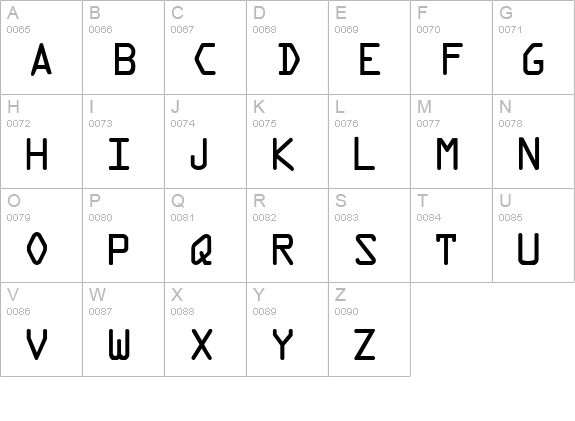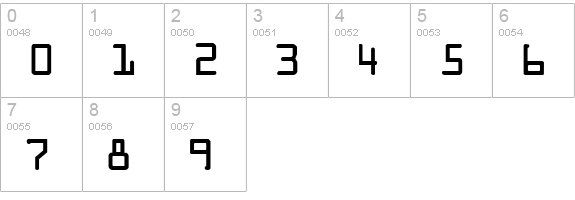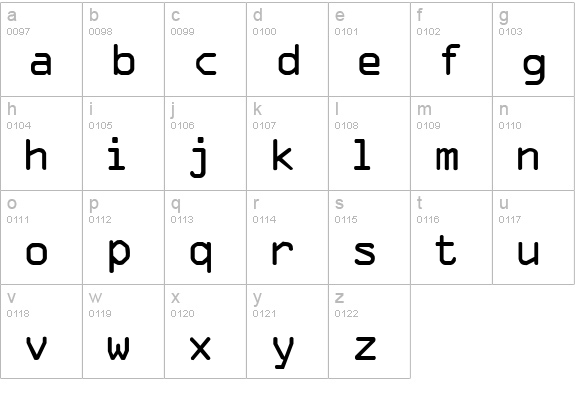
October Font Details
Introducing October font, a versatile and modern typeface that exudes sophistication and elegance. With its clean lines and sleek design, October font is perfect for a wide range of projects, from branding to editorial layouts. This contemporary font strikes the perfect balance between classic and contemporary styles, making it a timeless choice for any design. And the best part? October font is available for free download at FontsMarket.com! Whether you are a designer working on a new project or a student looking to enhance your work, October font is the perfect addition to your font library. Don't miss out on this opportunity to elevate your designs with this stunning and elegant font. Download October font today and let your creativity soar!